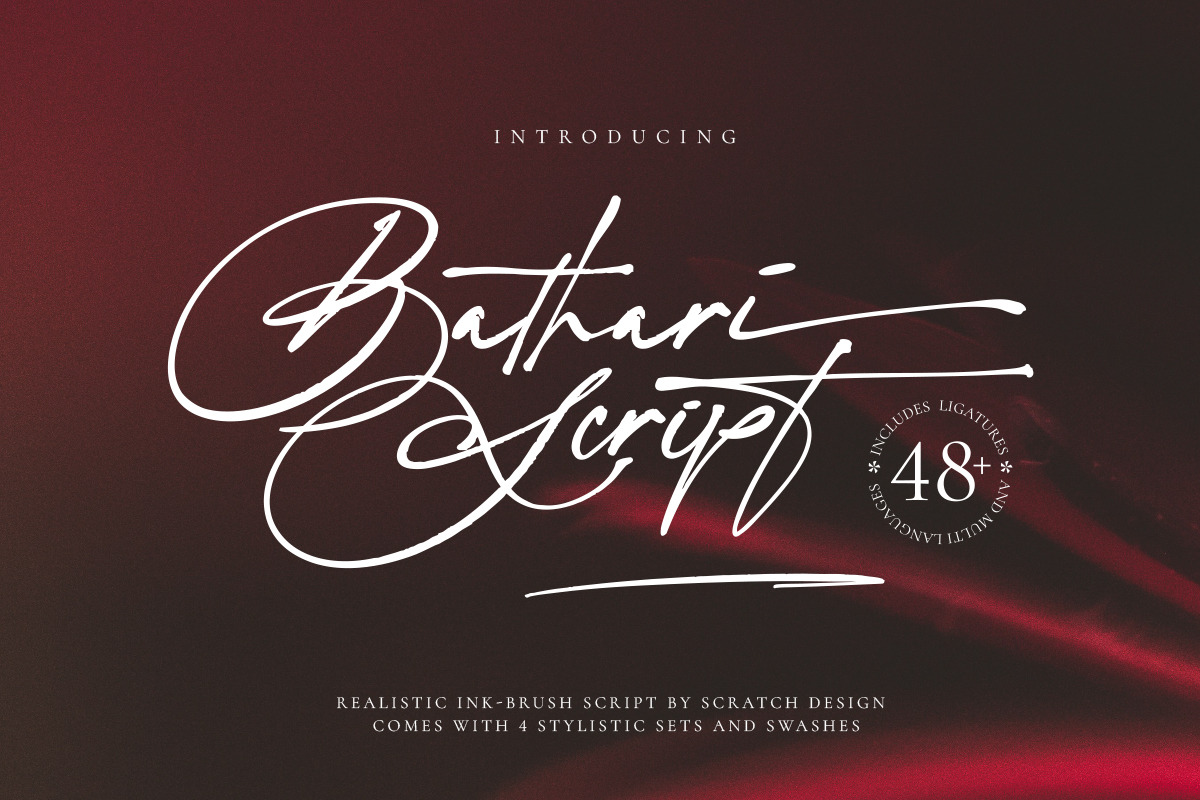
Bathari Script | Signature Font
Bathari Script is a powerful and realistic Ink-Brush Script that captures the dynamic movement and raw texture of a brush stroke, creating a dramatic, personal, and luxurious signature.
This highly expressive typeface features dramatic, long sweeps, high-contrast weight variation, and naturalistic dry brush textures, giving it an authentic, sophisticated hand-painted feel.
This font is loaded with features, including 48+ ligatures and swashes across 4 stylistic sets, making it the ultimate tool for bespoke branding, high-end packaging, magazine titles, and elegant wedding stationery that requires an exclusive signature flourish. The Bathari Script script ensures your design conveys professionalism, artistic flair, and a sense of unique, high-quality craftsmanship.
This powerful Realistic Ink-Brush Script is perfect for projects that need to make a grand, unforgettable statement.